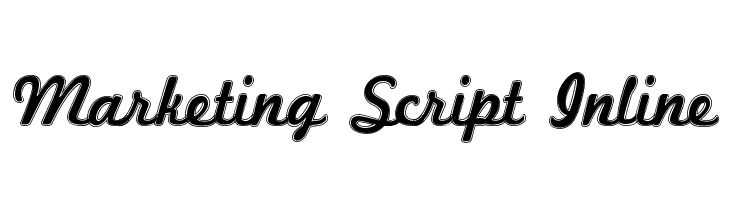
A bold, flowing script font with a modern and elegant style.
A bold, cursive font with elegant, flowing strokes.
A bold, expressive script font with dynamic, flowing strokes.
A bold, cursive font with a smooth, flowing style.
A bold, expressive handwritten font with a cursive style.
A flowing, cursive handwritten font with elegant, interconnected characters.
A graceful script font with flowing, interconnected cursive letters.
An elegant script font with flowing, cursive letterforms and medium contrast.
A handwritten, cursive font with smooth, flowing lines and a personal touch.
A cursive, handwritten-style font with smooth, flowing characters.
A bold, cursive script font with high contrast and flowing, connected characters.
A classic, elegant script font with smooth, flowing lines and a handwritten appearance.